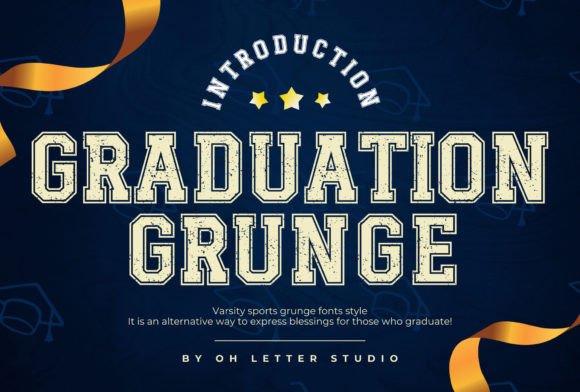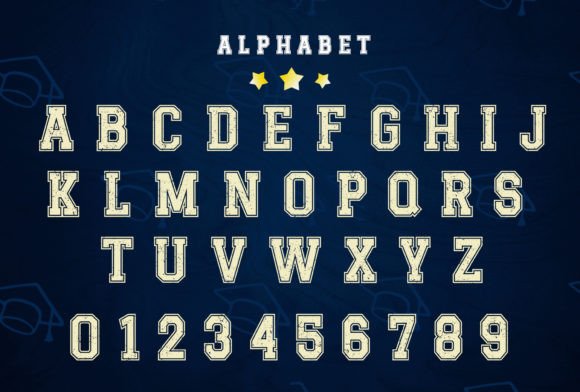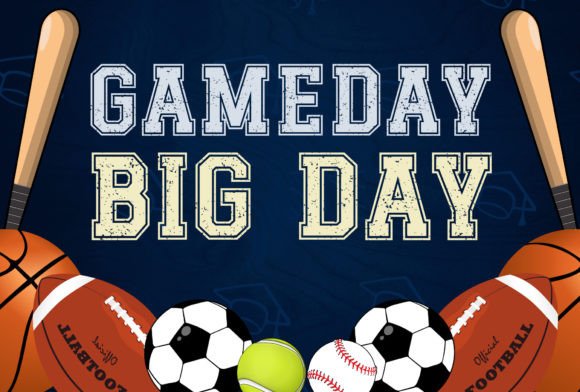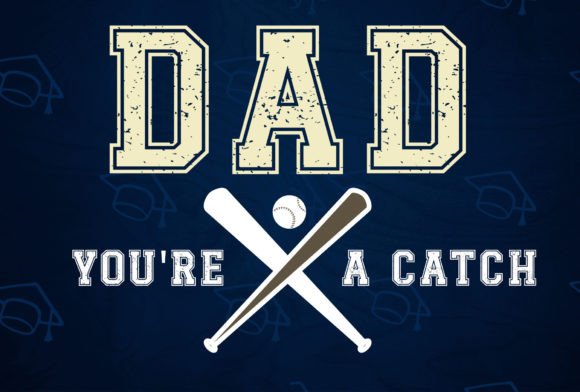
Graduation Grunge Font
About the Graduation Grunge Font
Step up your design game with Graduation Grunge Font, a font that exudes confidence and style. Graduation Grunge is a bold and assertive college slab serif font. No matter the topic, this font will be an incredible asset to your fonts’ library, as it has the potential to elevate any creation.
Its strong, high-contrast forms make Graduation Grunge ideal for headlines, posters, and short impactful statements in branding materials. It excels in creating a bold, confident presence, perfect for projects conveying authority or a rebellious spirit. However, its weight and slab serifs make it unsuitable for body text or UI elements requiring high readability.
This font’s assertive personality pairs well with clean sans-serif fonts like Open Sans or Lato for a balanced contrast, or a more playful script like Pacifico for a less formal but still impactful effect. Consider pairing it with a geometric sans-serif for a modern and edgy feel.
Graduation Grunge projects a bold, rebellious, and slightly vintage mood. It’s well-suited for brands targeting a younger audience, those with a punk or grunge aesthetic, or projects needing to convey strength and conviction.
Graduation Grunge Font Usage Examples
Graduation Grunge Font Example